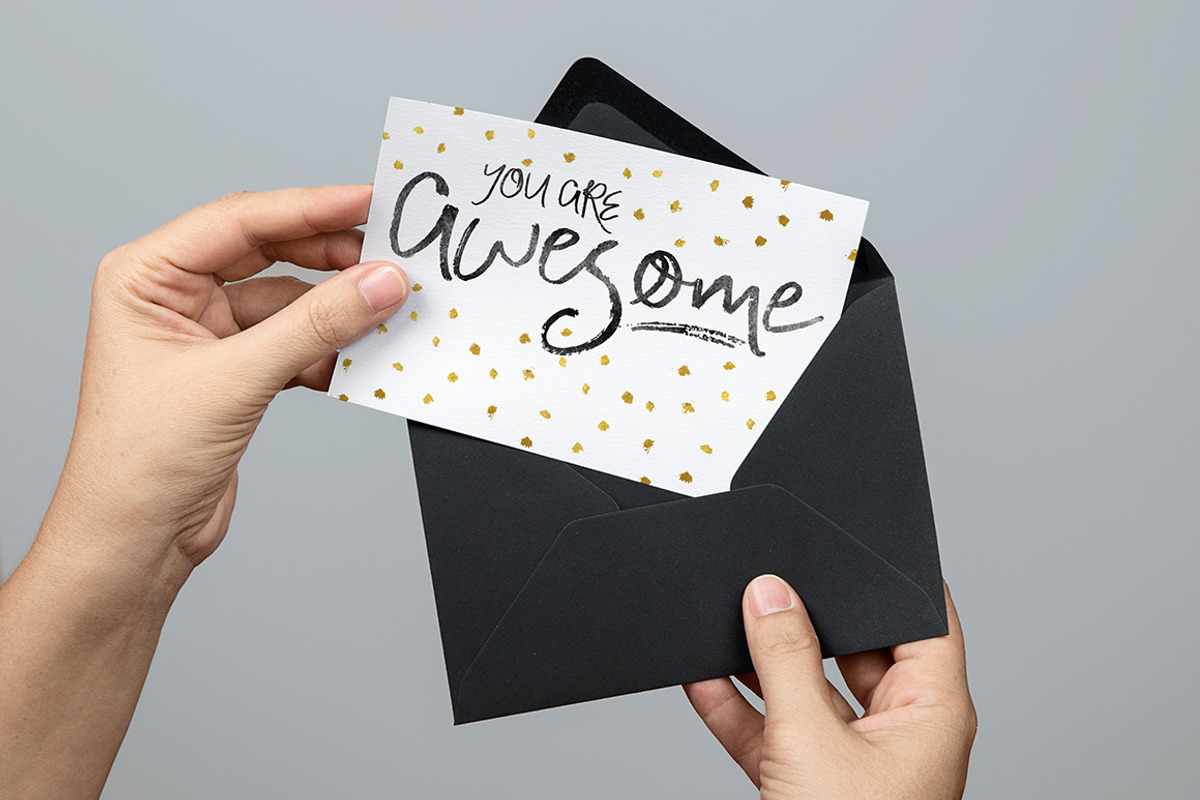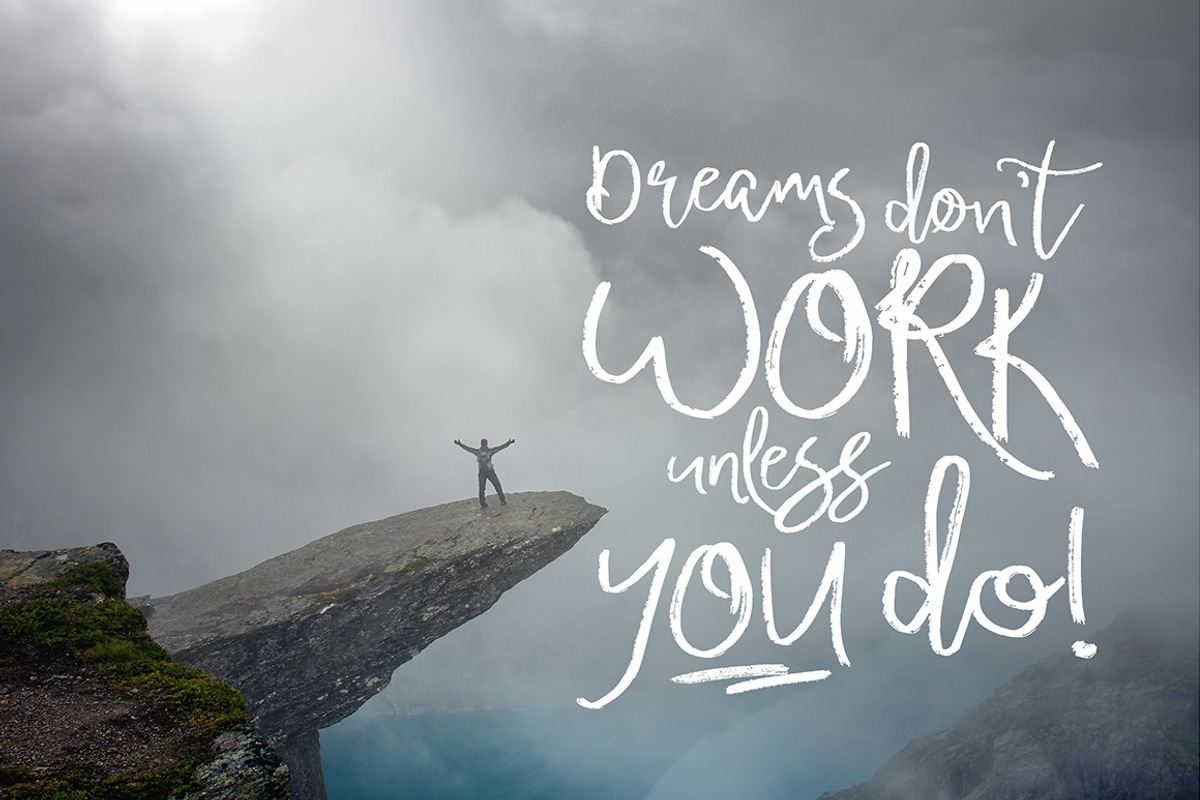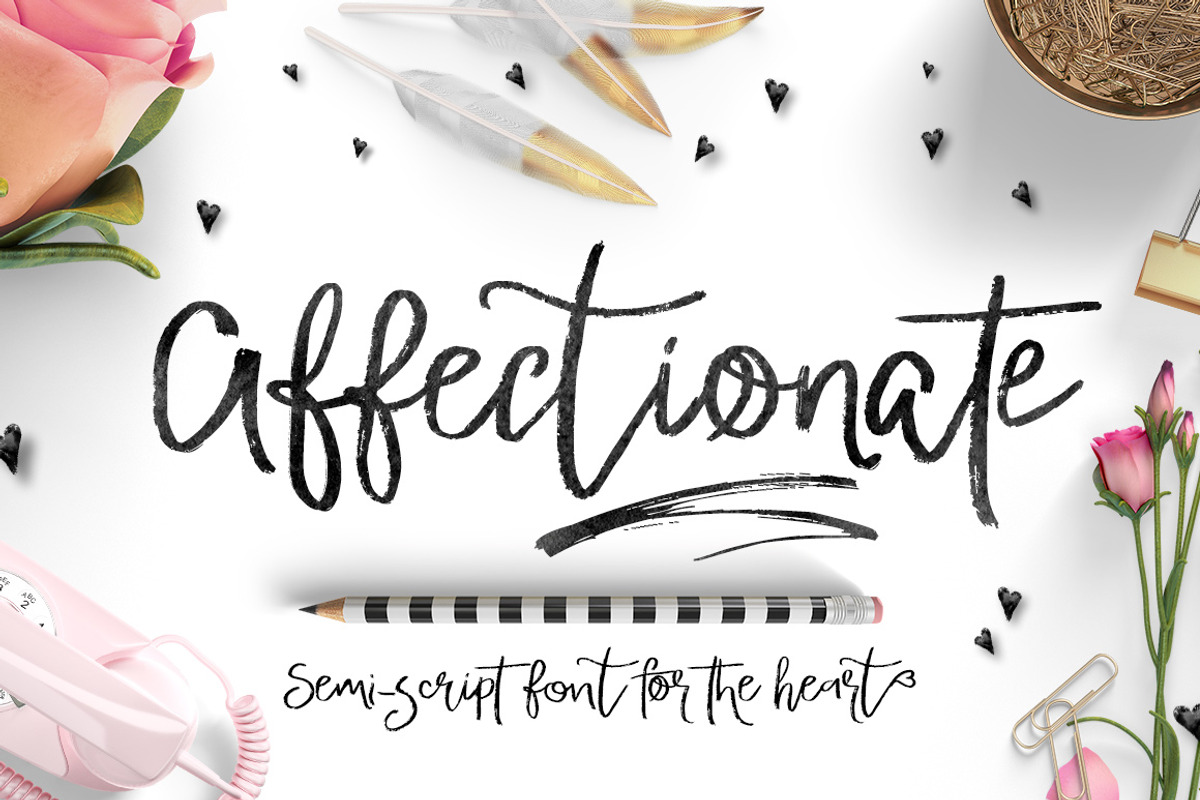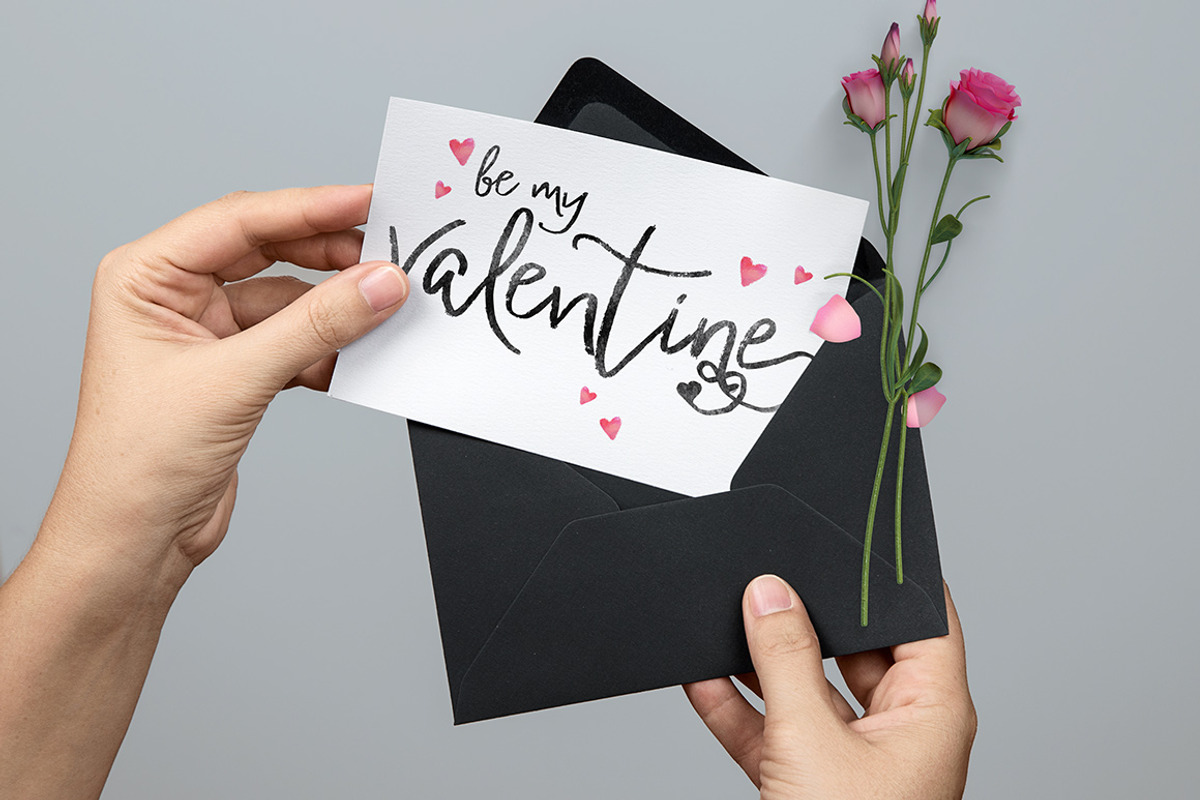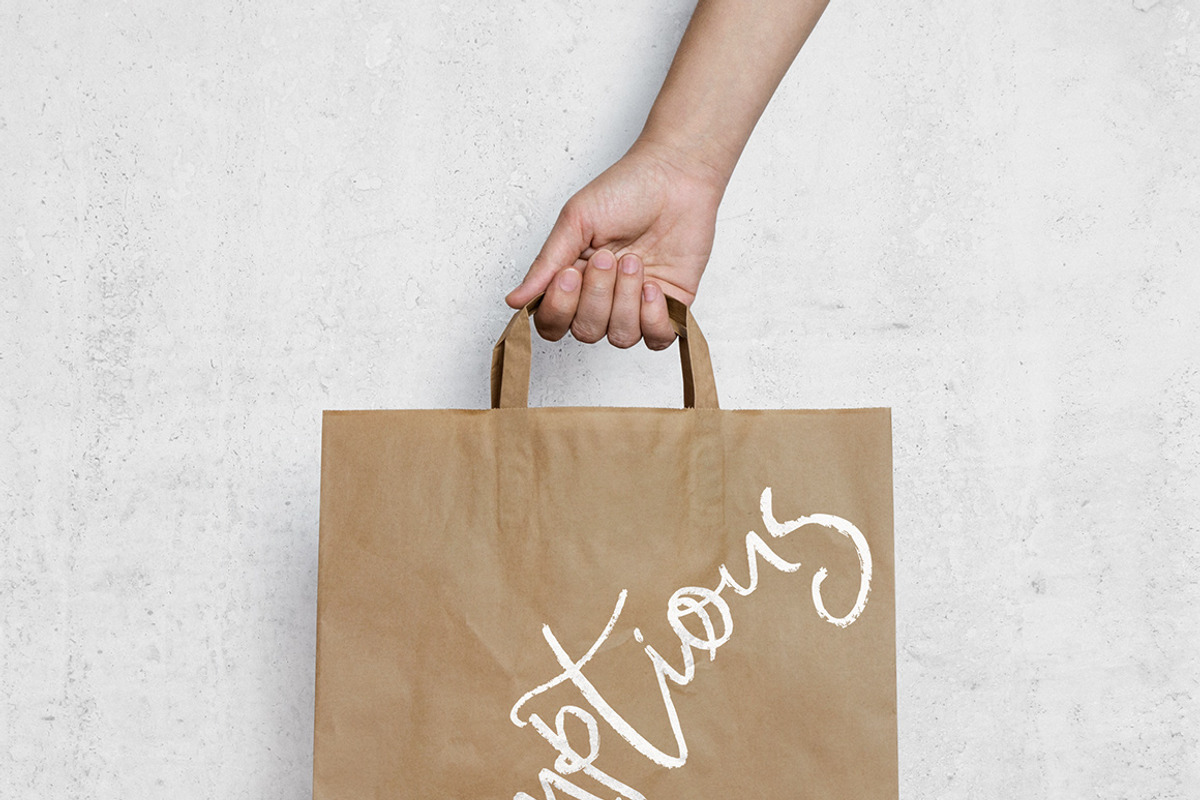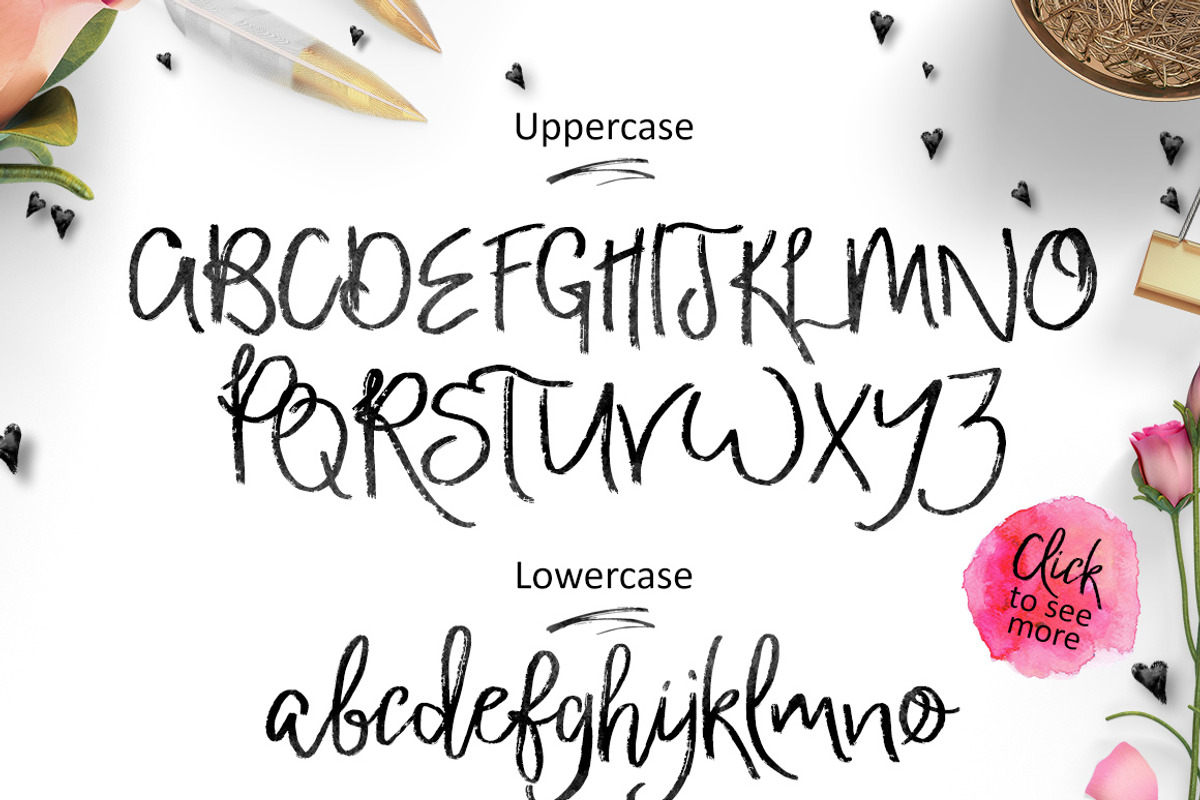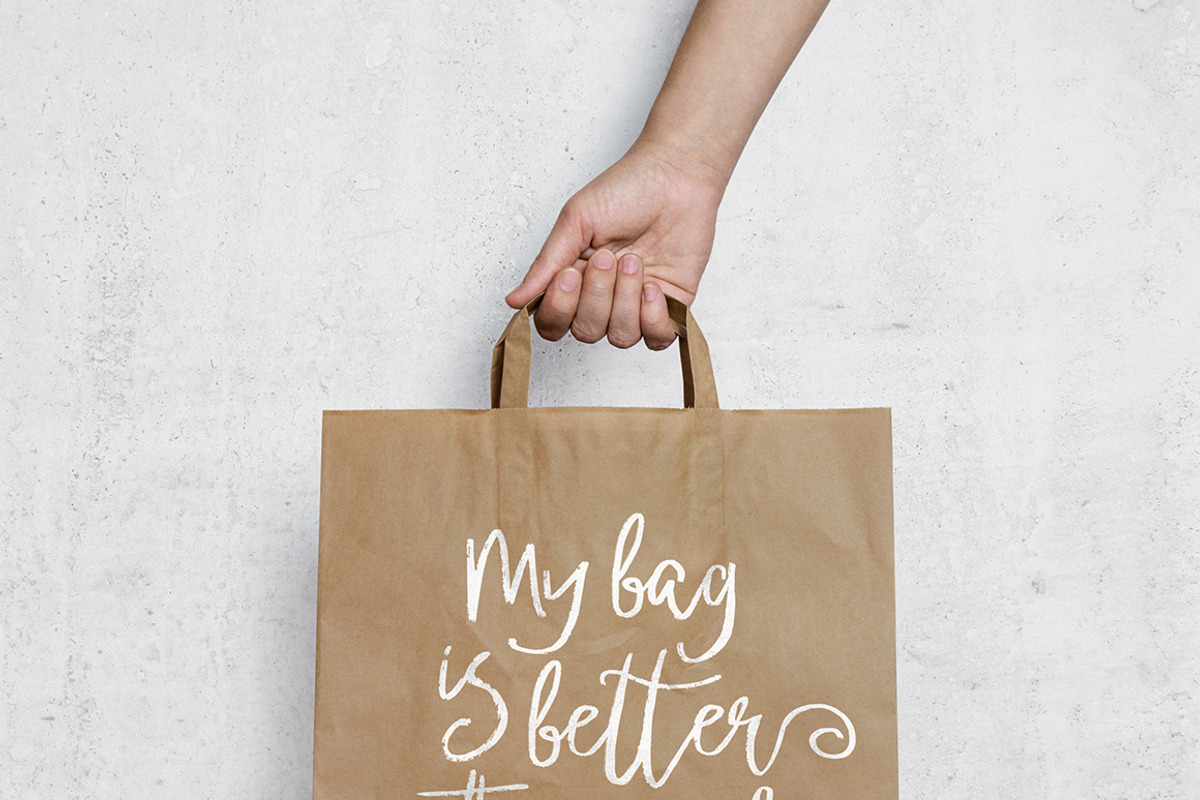
Affectionate Brush Script Font
Affectionate Brush Script Font by Creativeqube Design is a font selected for branding, posters, packaging, typography.
- Please welcome the brand new Affectionate - a rough semi-script hand drawn typeface with a full set of alternate lowercase letters and lots
- Affectionate had upper and lowercase glyphs, discretionary ligatures, alternates, numbers and symbols, and dashes and swashes and hearts.
Why Affectionate Brush Script Font is worth a look
Affectionate Brush Script Font by Creativeqube Design fits naturally into Branding, posters, packaging, typography.